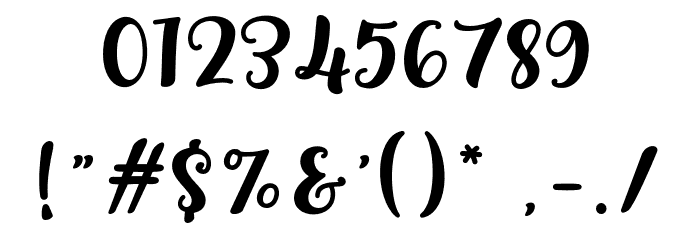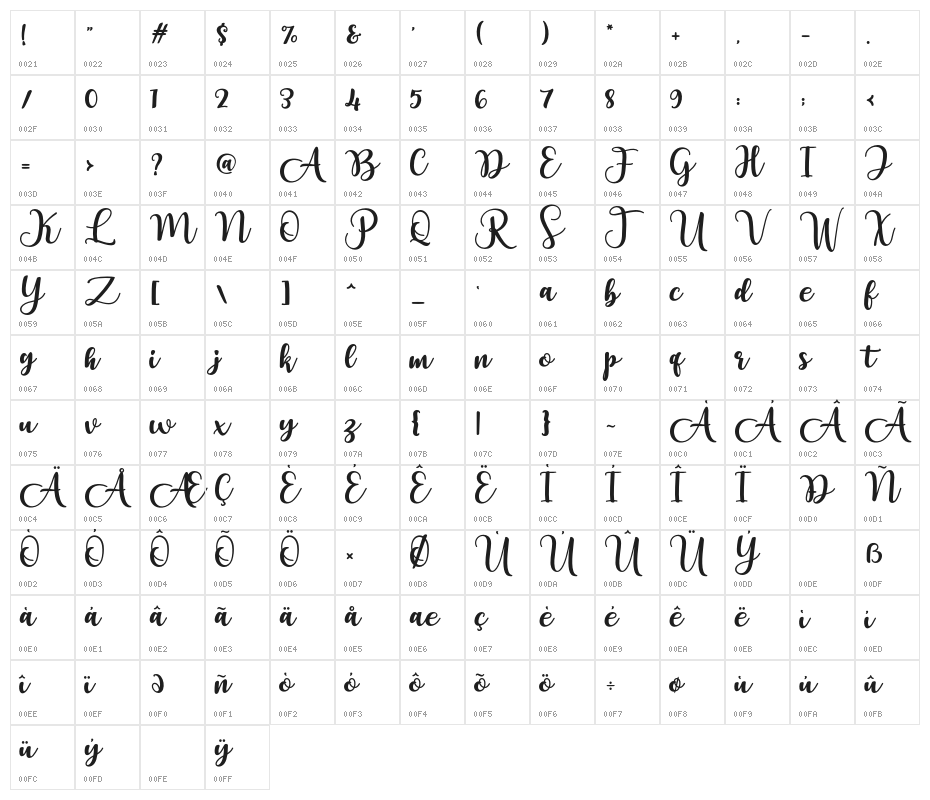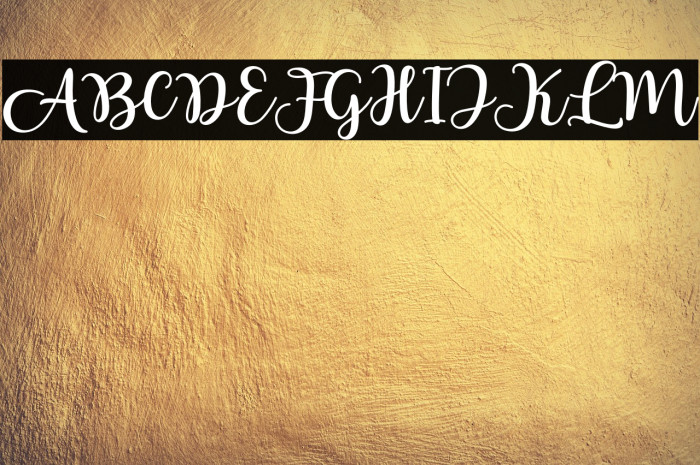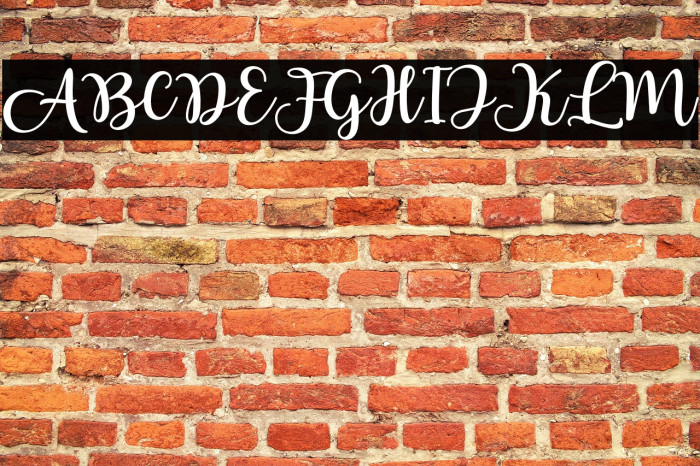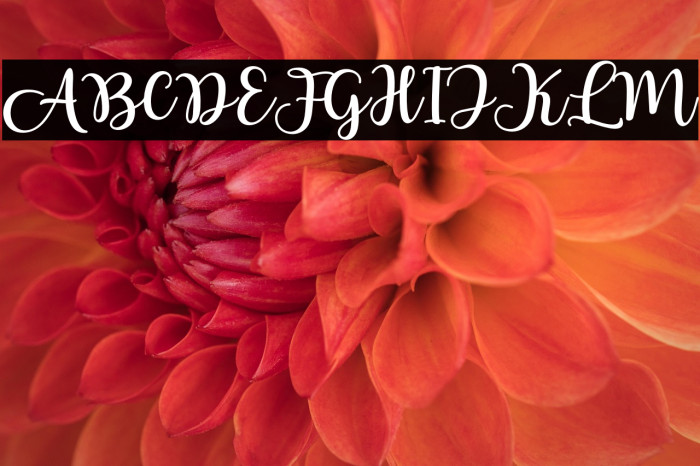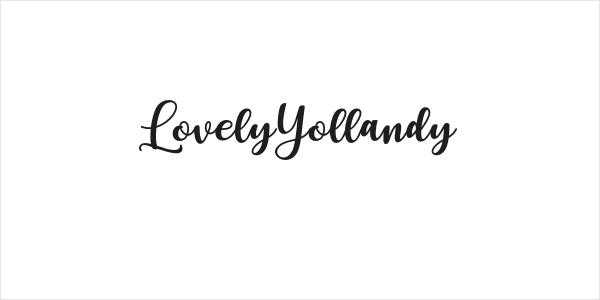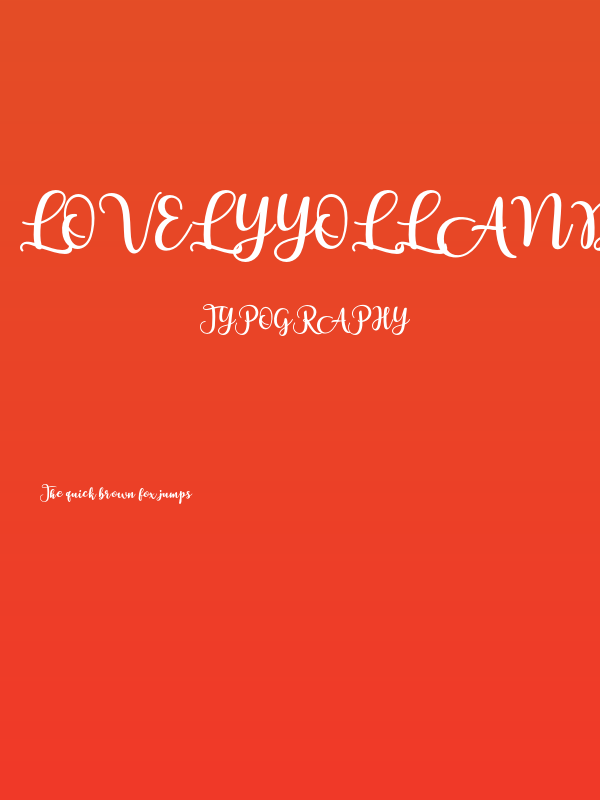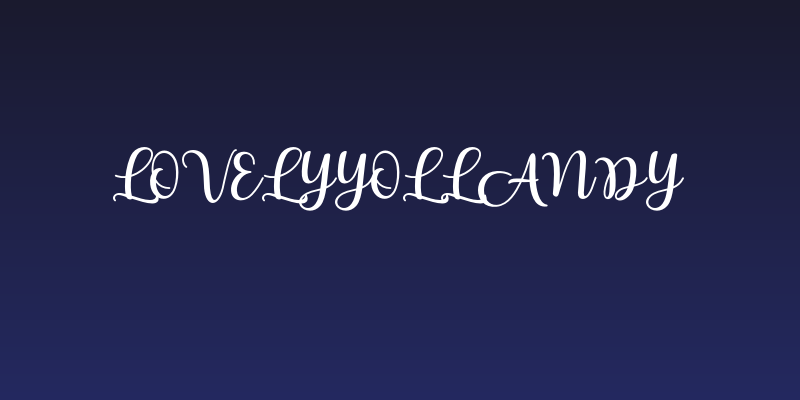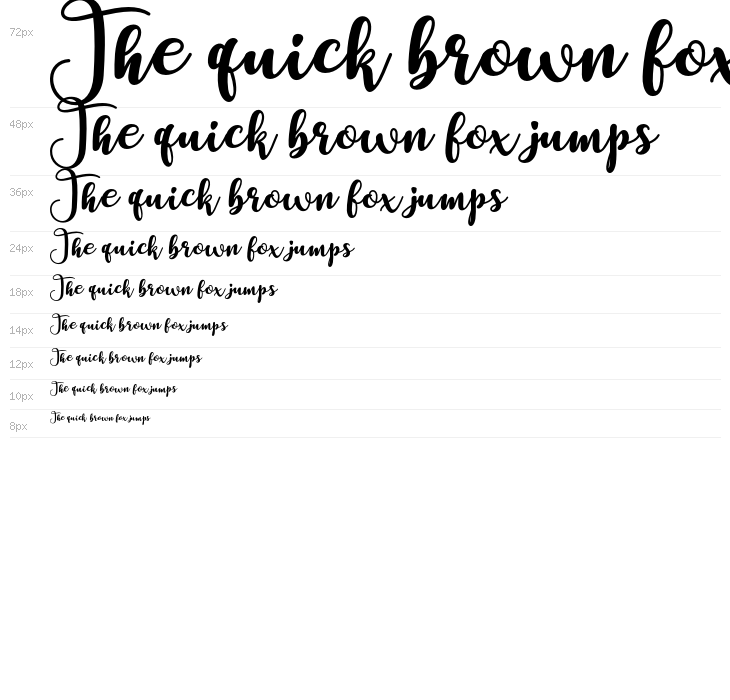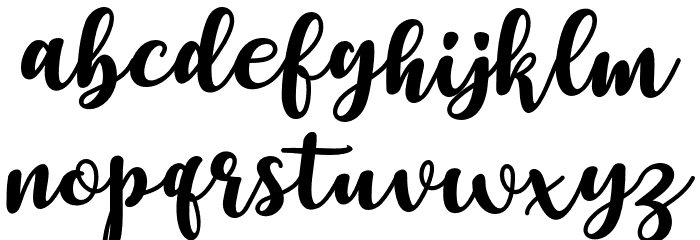
LovelyYollandy Font
LovelyYollandy Description
This font features a charming and elegant script style with a handwritten feel. The uppercase letters are gracefully connected, showcasing a fluid motion that adds a touch of sophistication. The lowercase letters maintain a consistent flow, enhancing readability while preserving the artistic flair. The numerals are bold and clear, ensuring they stand out in any design. Special characters are thoughtfully designed to complement the overall aesthetic, making this font versatile for various applications. Its playful yet refined appearance makes it ideal for creative projects that require a personal touch.
| Proposed Projects | Ideal for wedding invitations, greeting cards, branding, and social media graphics. |